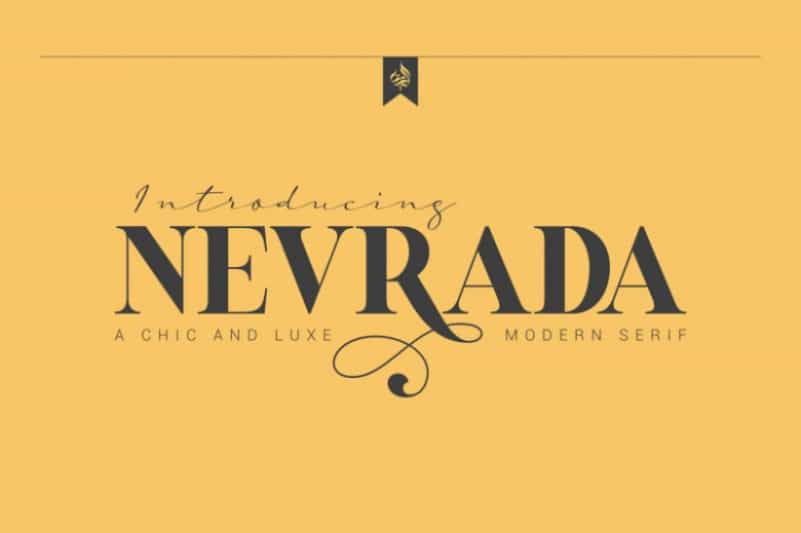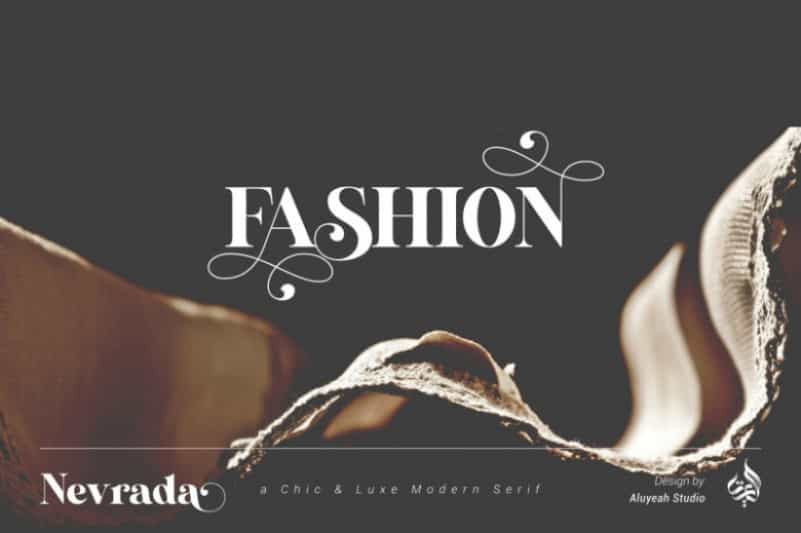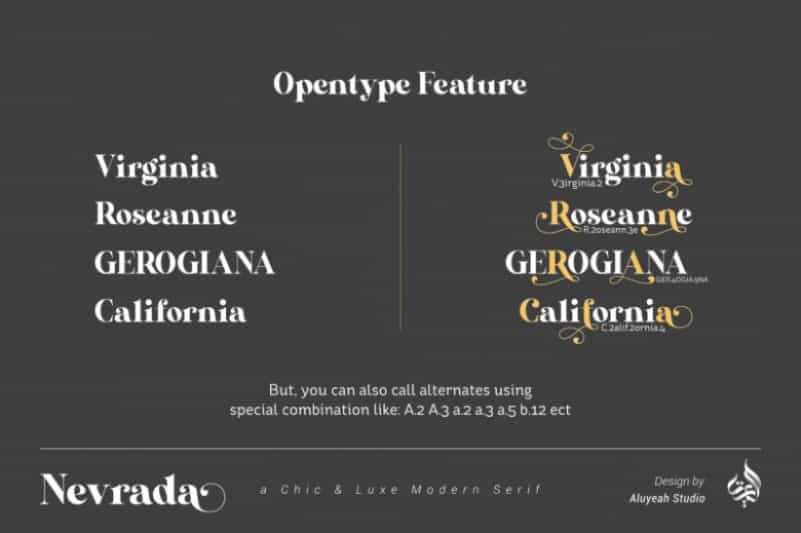
Discover Nevrada Serif Font, part of the Serif Slab Serif collection—a versatile and unique font perfect for adding a personal touch to your projects. Download it for free and enjoy crafting designs with style, from invitations to social media posts. This font is available exclusively for personal use, giving you the freedom to create without limits. Unlock your creativity with Nevrada Serif Font today!
Introducing Nevrada Font. This is display typeface that has sharp corners on the ends of the strokes that make up the letters. As I mentioned before, if you are looking to something unique then this is the font for you. The logo was created by Aluyeah Studio. It is a well-designed and elegant serif font that has a modern twist. It is perfect for adding a real punch and powerful element to any design.